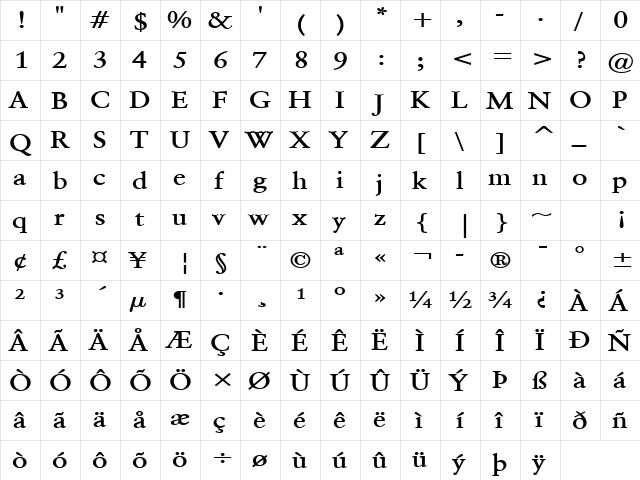
Garrick Wide Bold
Design Context for Garrick Wide Typeface
Garrick Wide offers clean, dependable letterforms without strong stylistic allegiance, making it a practical choice for designers who need flexibility. Its bold stroke weight gives it real presence on the page.